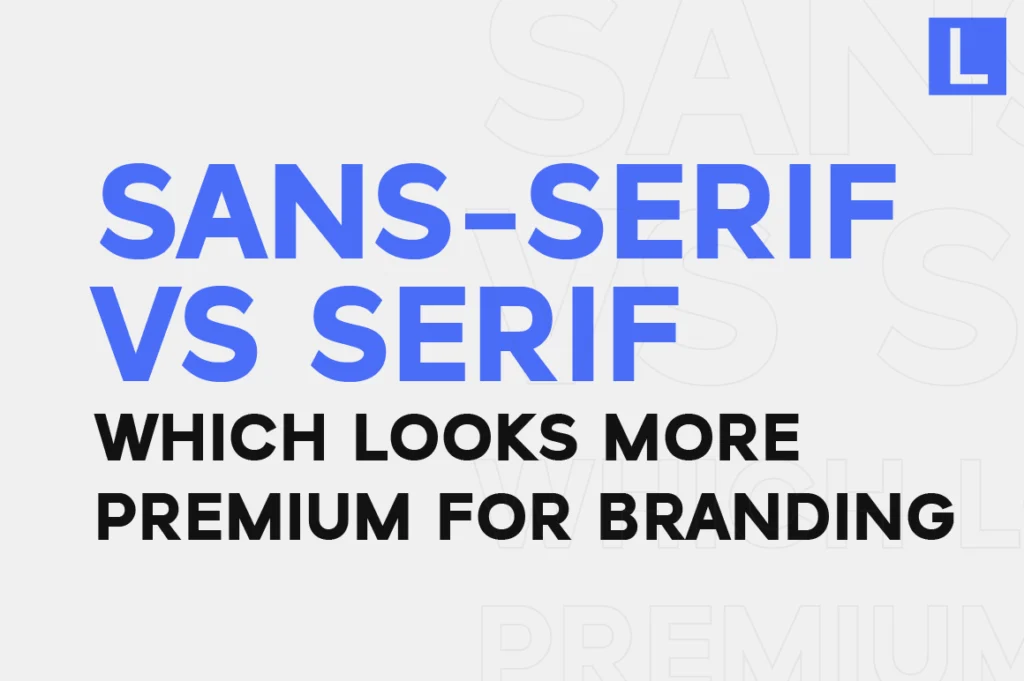
Sans Serif vs Serif: Which One Actually Makes Your Brand Look More Premium?
Sans Serif vs Serif Fonts Which Looks More Premium for Branding
Most brands don’t struggle because they choose bad fonts.
They struggle because they choose the wrong type of font.
One of the biggest decisions in branding is this:
Sans-serif or serif?
At a glance, it seems simple. But this single choice can completely change how your brand is perceived—modern vs. classic, minimal vs. elegant, neutral vs. expressive.
So which one actually makes your brand look more premium?
Let’s break it down.
Sans Serif: Clean, Modern, and Controlled
Sans serif fonts are everywhere—and for good reason.
They offer:
• Clean structure
• High readability
• Modern appearance
That’s why most tech companies, startups, and digital brands rely on sans-serif typography.
Fonts like Raela Pro, Lenia Sans, and Naru Sans represent this category well. They are designed to feel structured and refined, making them ideal for brands that want to look professional and contemporary.
👉 When to choose sans serif:
• You want a modern, minimal identity
• Your brand is digital-first
• You need flexibility across platforms
Serif: Elegant, Expressive, and Timeless
Serif fonts tell a different story.
They bring:
• A sense of tradition
• Editorial character
• Visual richness
While some brands avoid serif fonts, thinking they feel outdated, the reality is the opposite—when used correctly, serif fonts often feel more luxurious.
Typefaces like Vescura highlight this perfectly. With refined details and a strong editorial tone, serif typography can instantly elevate a brand into a more premium, high-end space.
👉 When to choose serif:
• You want an elegant, luxurious feel
• Your brand leans toward editorial or storytelling
• You want a stronger visual personality
The Real Difference: Neutral vs Character
Here’s the truth most people miss:
• Sans-serif = control and neutrality
• Serif = character and expression
Neither is better by default.
But they create different types of premiums.
• Sans serif feels clean-premium (tech, corporate, minimal)
• Serif feels luxury-premium (fashion, beauty, editorial)
Why Most Brands Choose the Wrong One
Many brands default to sans serif because it feels “safe.”
But safe doesn’t always mean premium.
In some cases:
• A sans-serif font can feel too generic
• while a serif font could have created a stronger identity
On the other hand:
• Forcing a serif into a modern tech brand can feel mismatched
👉 The mistake isn’t the font—it’s the mismatch.
Can You Combine Both? (Yes—And You Should)
Some of the strongest brand systems use both:
• Sans serif for structure (logo, UI, body text)
• Serif for accent (headlines, editorial sections)
This creates:
• balance
• hierarchy
• visual interest
And most importantly, a more distinctive brand voice
Final Thought
There is no universally “better” choice between sans serif and serif.
There is only one choice that aligns with your brand’s identity.
If you want to look modern and controlled, go sans serif.
If you want to feel elegant and expressive, go serif.
But if you want to stand out?
Learn how to use both—intentionally.